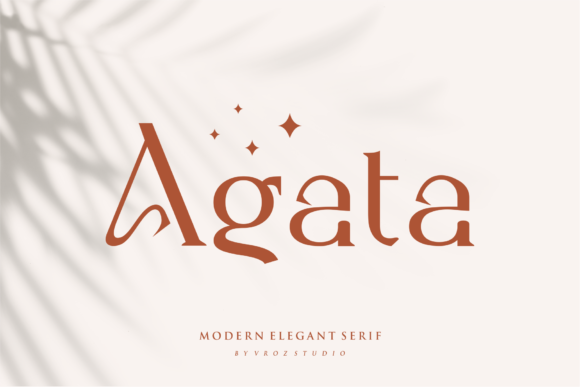
Introducing Agata Font, the Serif font that commands attention!
Dive into the world of typography with Agata, an exquisite serif font that exudes elegance, simplicity, and power. Crafted by the talented minds at Vroz Studio, Agata is a visual masterpiece designed to turn heads and make a lasting impression.
Journey through endless design possibilities with Agata, a font that effortlessly adapts to a myriad of creative expressions. From t-shirts to sportswear, logos to advertisements, and clothing to branding, Agata seamlessly blends into your vision, enhancing it with a touch of sophistication and allure.
Unleash your creativity with Agata's captivating curves and sharp edges. Its clean lines and assertive personality invite you to explore new heights of visual storytelling. Embrace the power of Agata to create designs that resonate with audiences, leaving an unforgettable mark on their minds.
Whether you're a seasoned designer or just starting your creative journey, Agata is the perfect companion. Its user-friendly nature makes it accessible to all skill levels, allowing you to effortlessly transform your ideas into tangible works of art.
Step into the spotlight with Agata, the font that empowers you to:
- Craft captivating display ads that demand attention.
- Design sportswear that exudes energy and style.
- Create logos that embody strength and sophistication.
- Elevate your advertisements with a touch of timeless elegance.
- Design clothing lines that radiate personality and flair.
Don't settle for ordinary fonts. Choose Agata, the Serif font that ignites your creativity and propels your designs to new heights. Embrace the power of Agata and watch your creations come alive with captivating beauty and unforgettable charm.